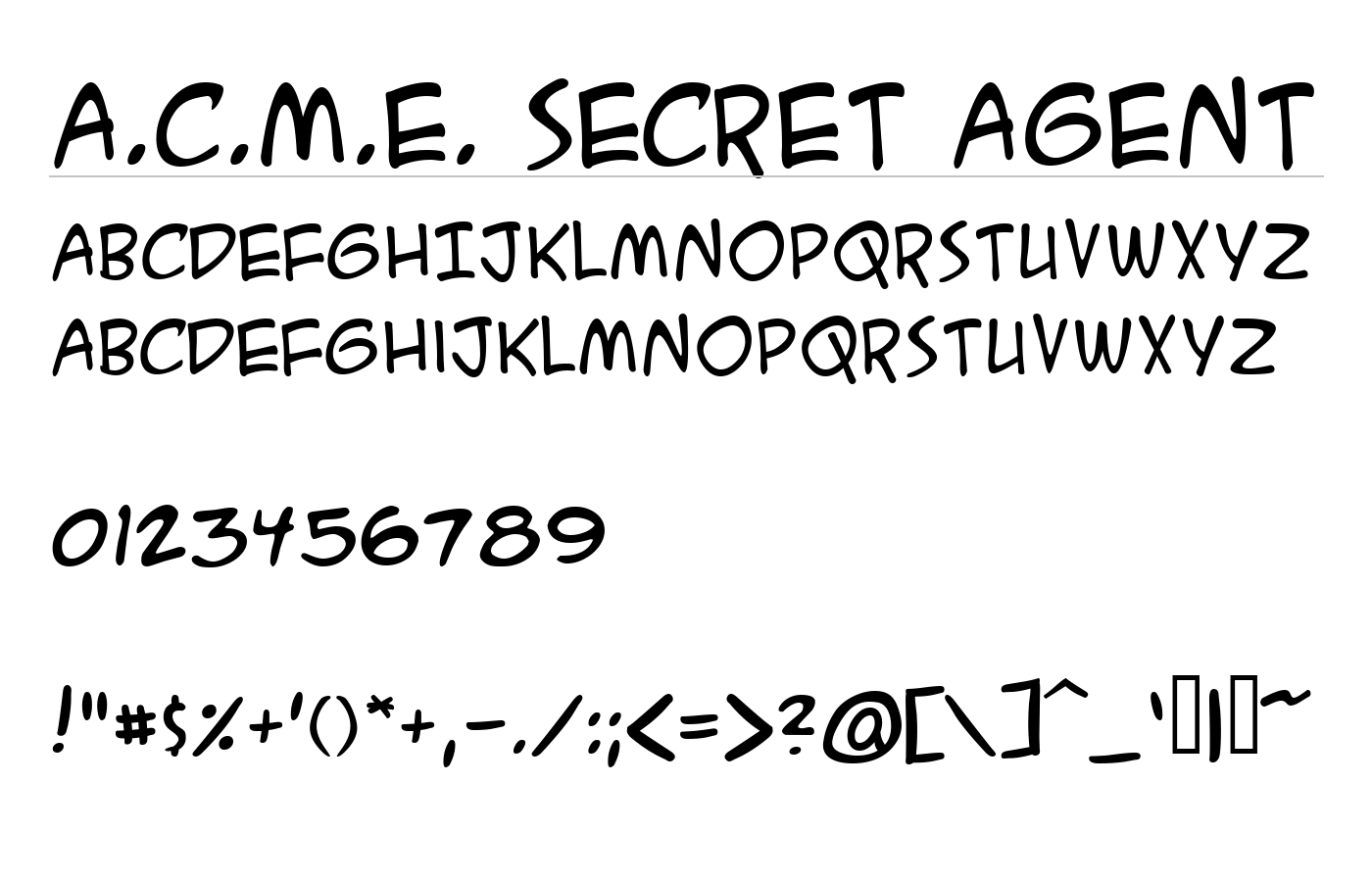
A.C.M.E. Secret Agent is a playful sans serif font with a handwritten, casual feel. It features medium weight strokes with smooth, slightly rounded edges and a moderate x-height that enhances readability while retaining a friendly, informal character. This font works well for fun, approachable designs like posters, logos, or children’s content where a lighthearted and energetic tone is desired.
A.C.M.E. Secret Agent Font
About A.C.M.E. Secret Agent Font